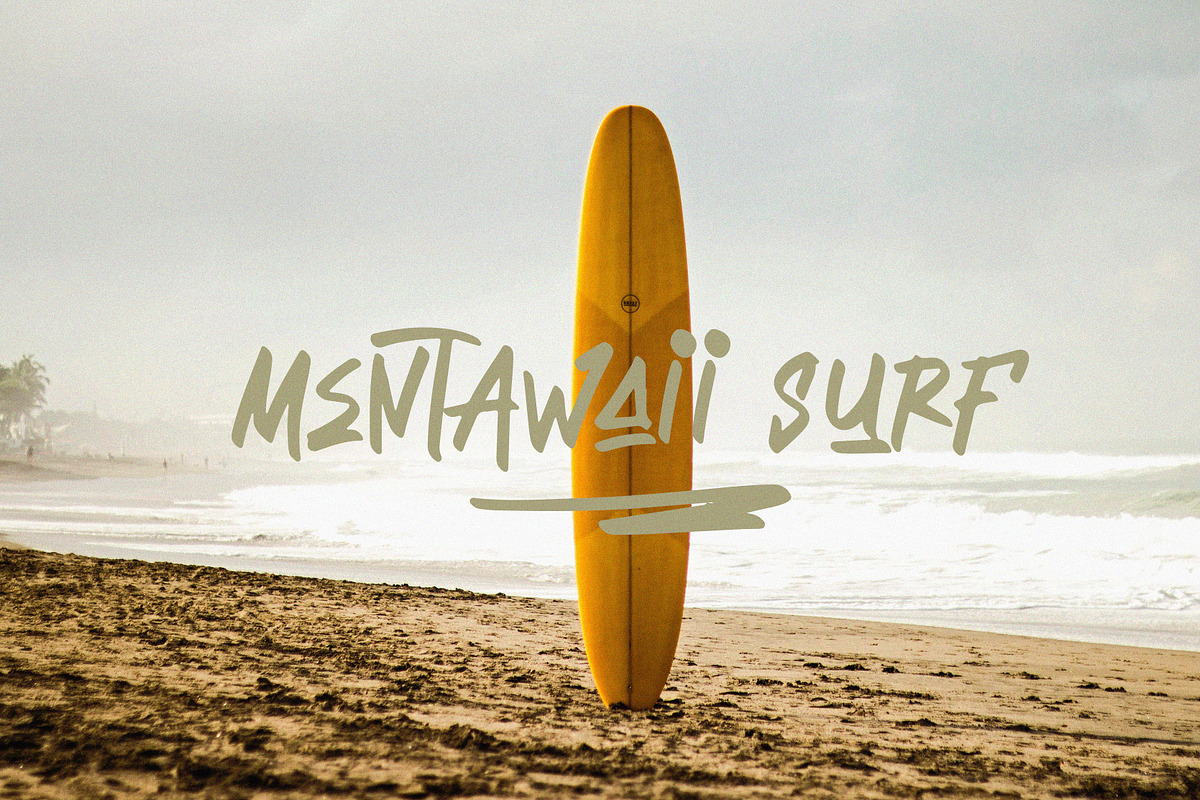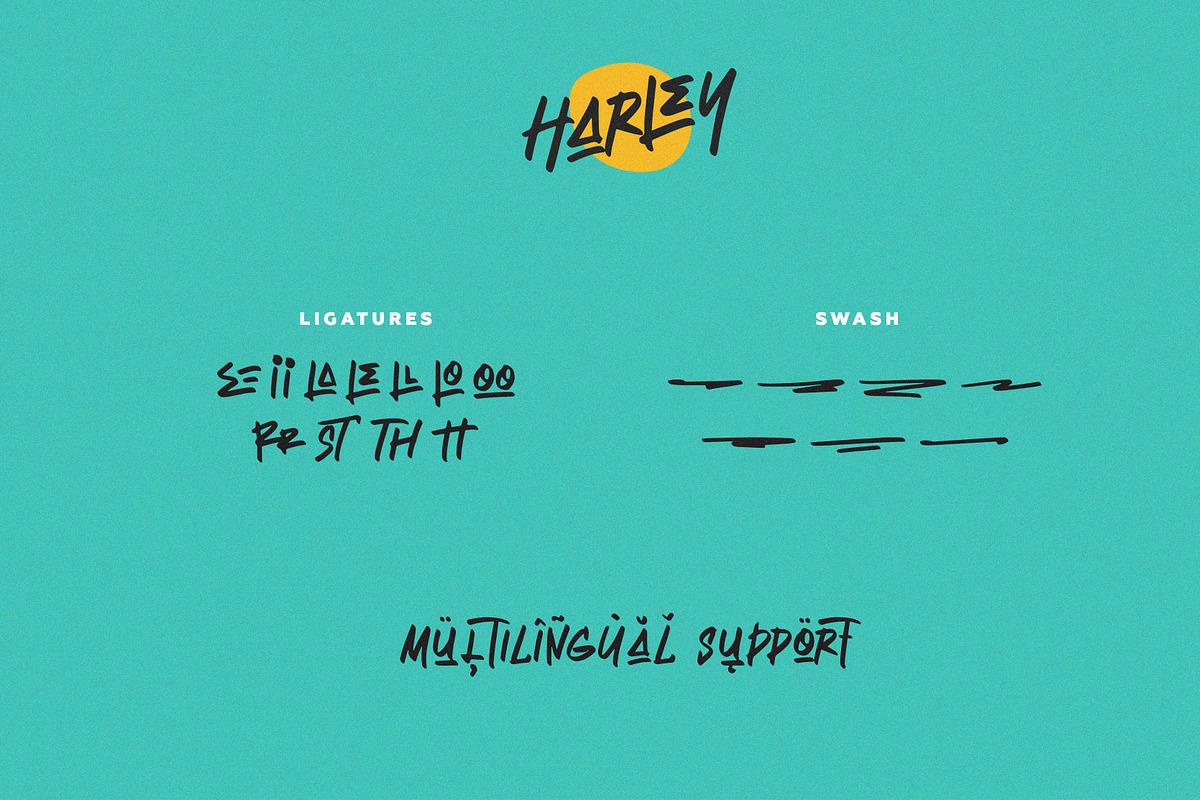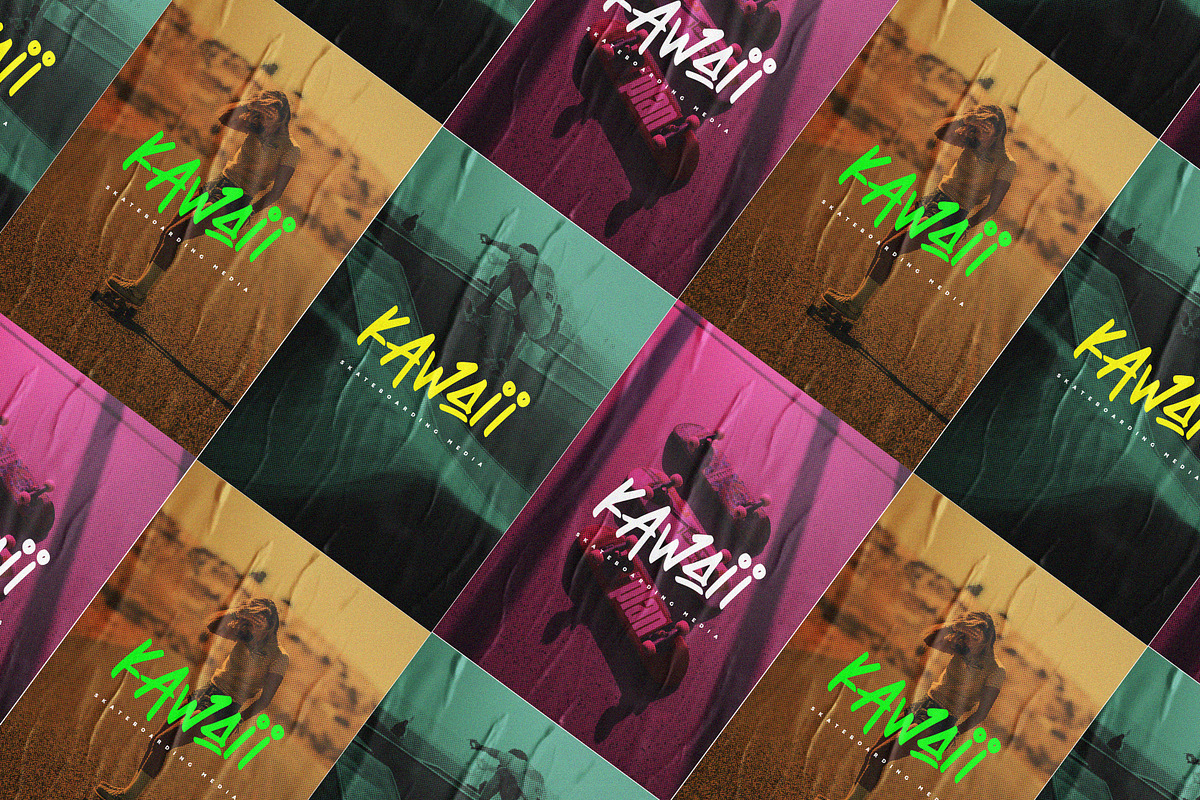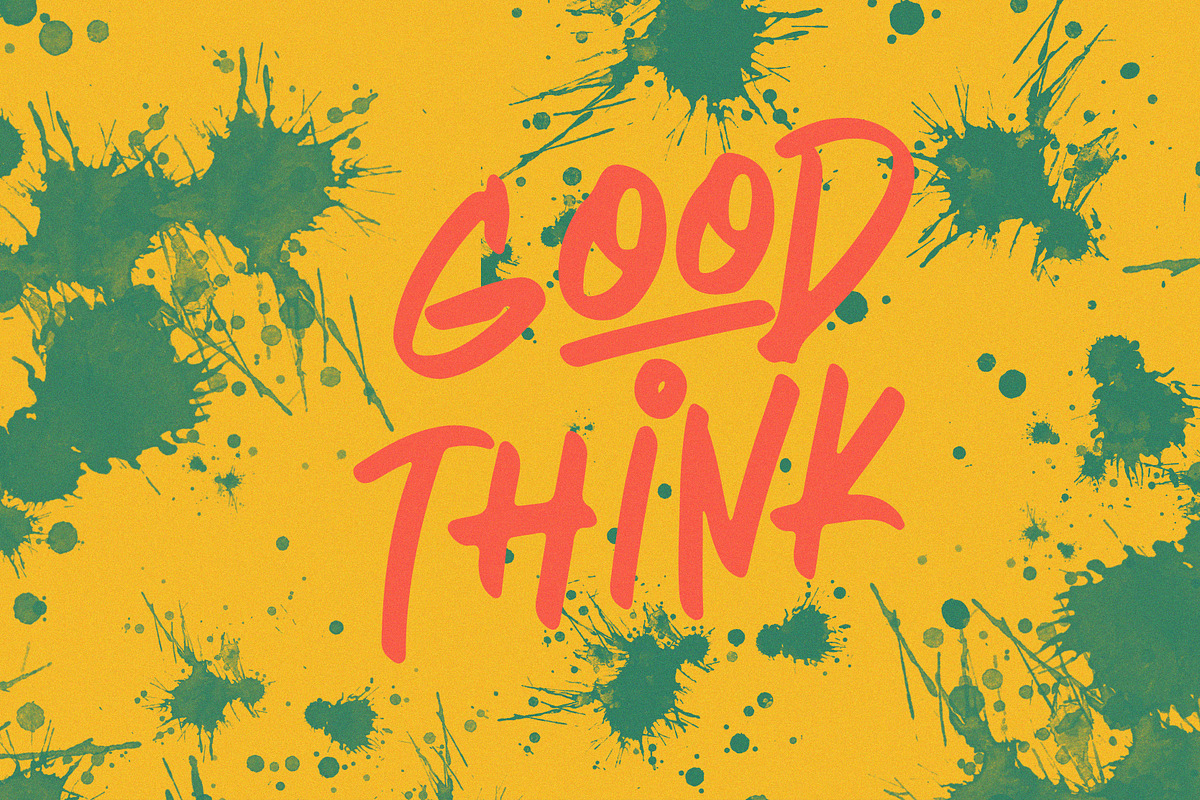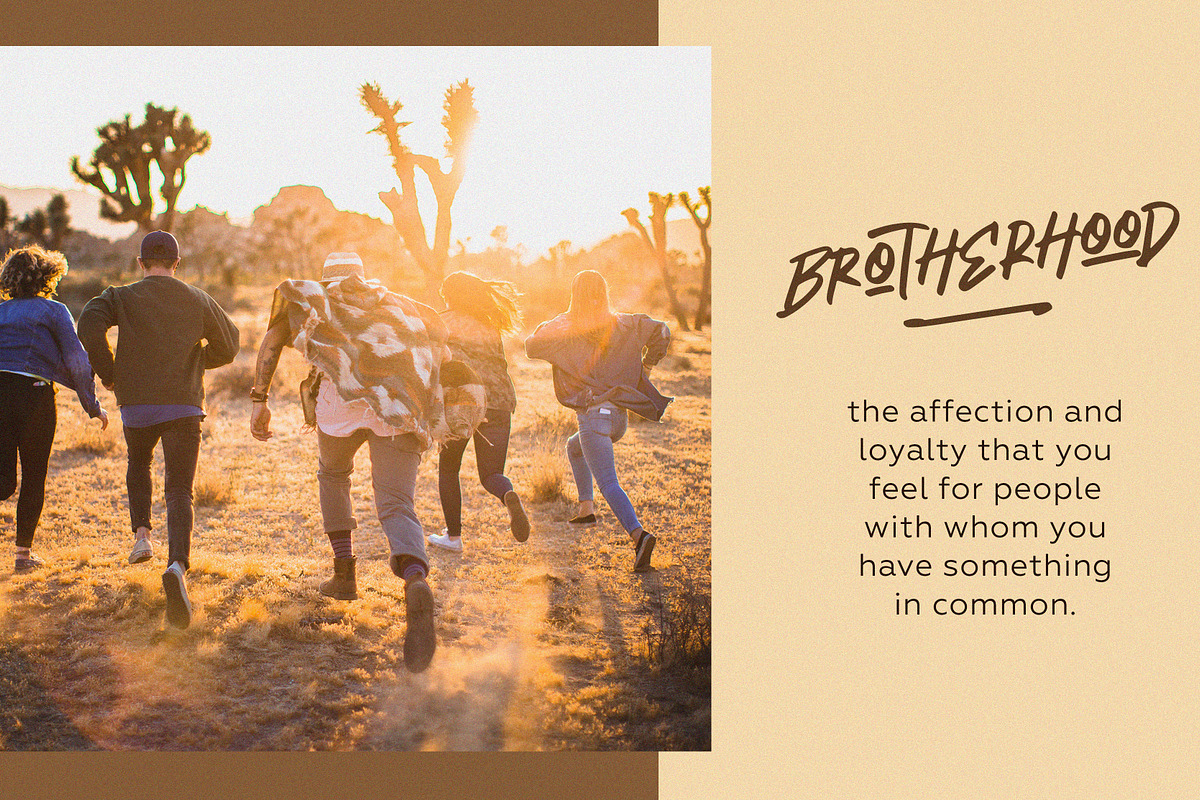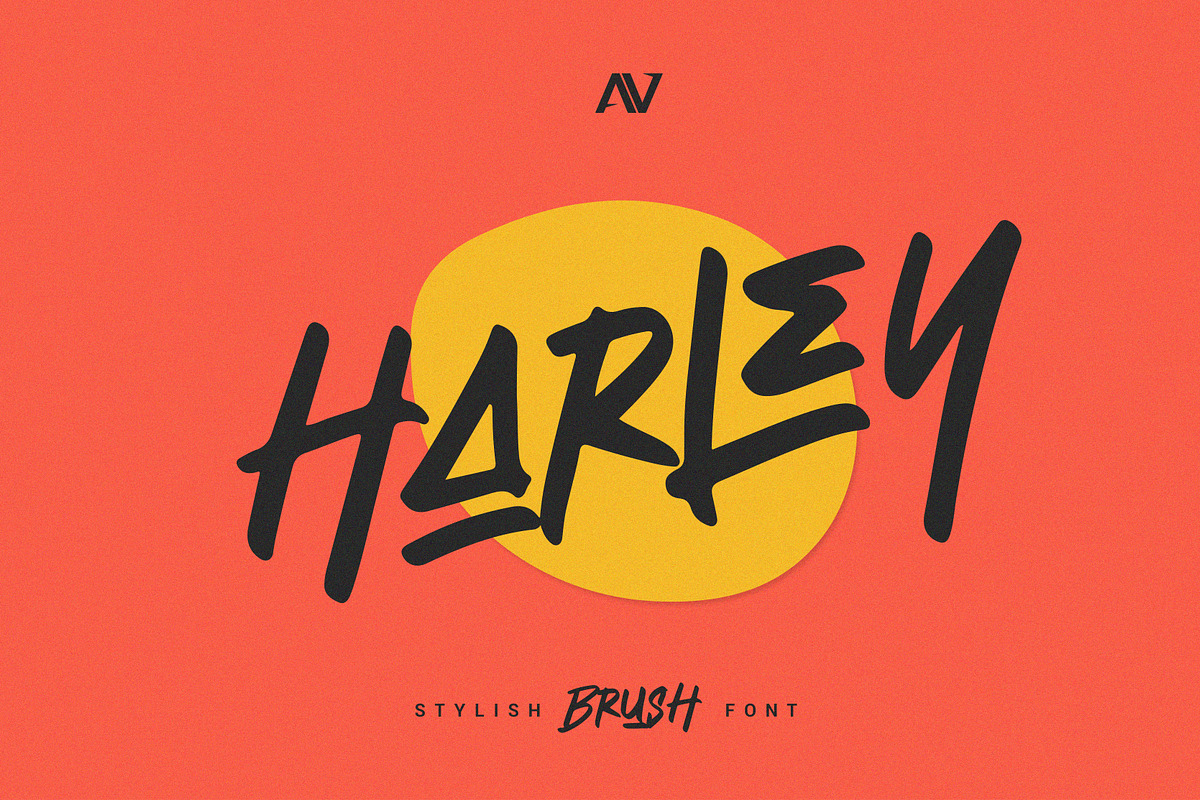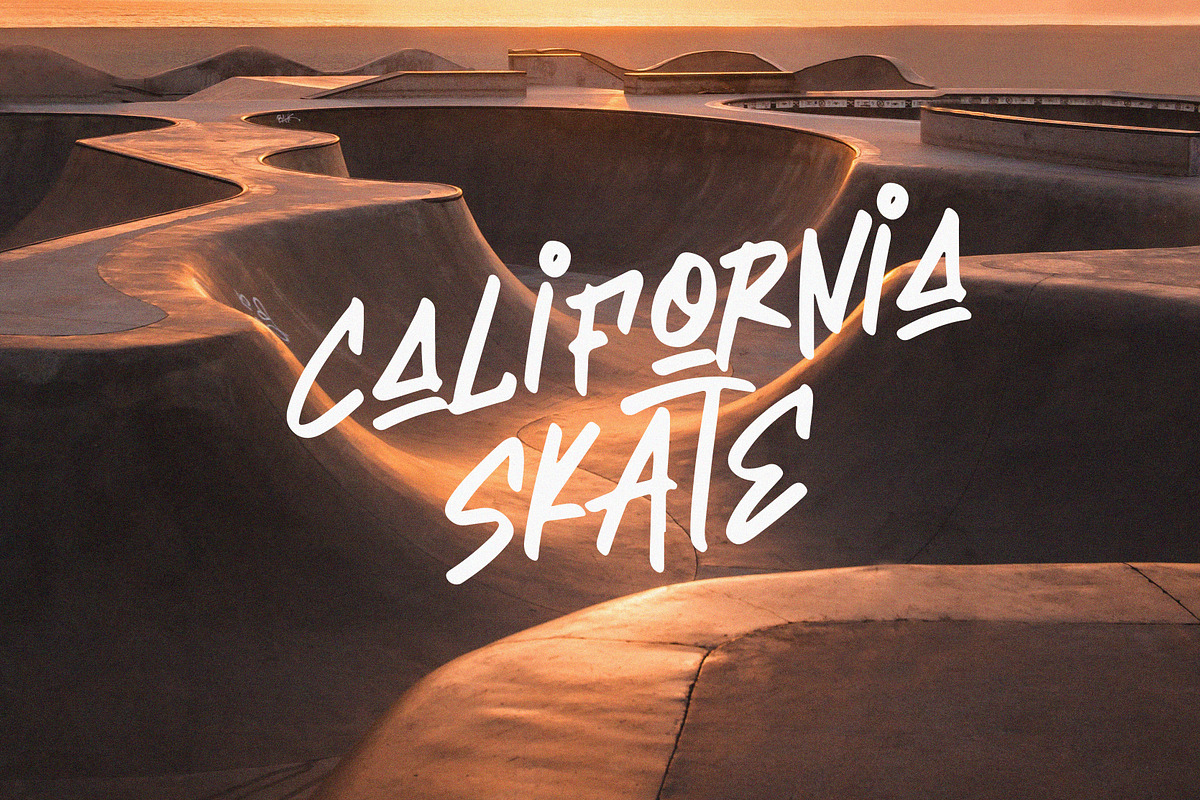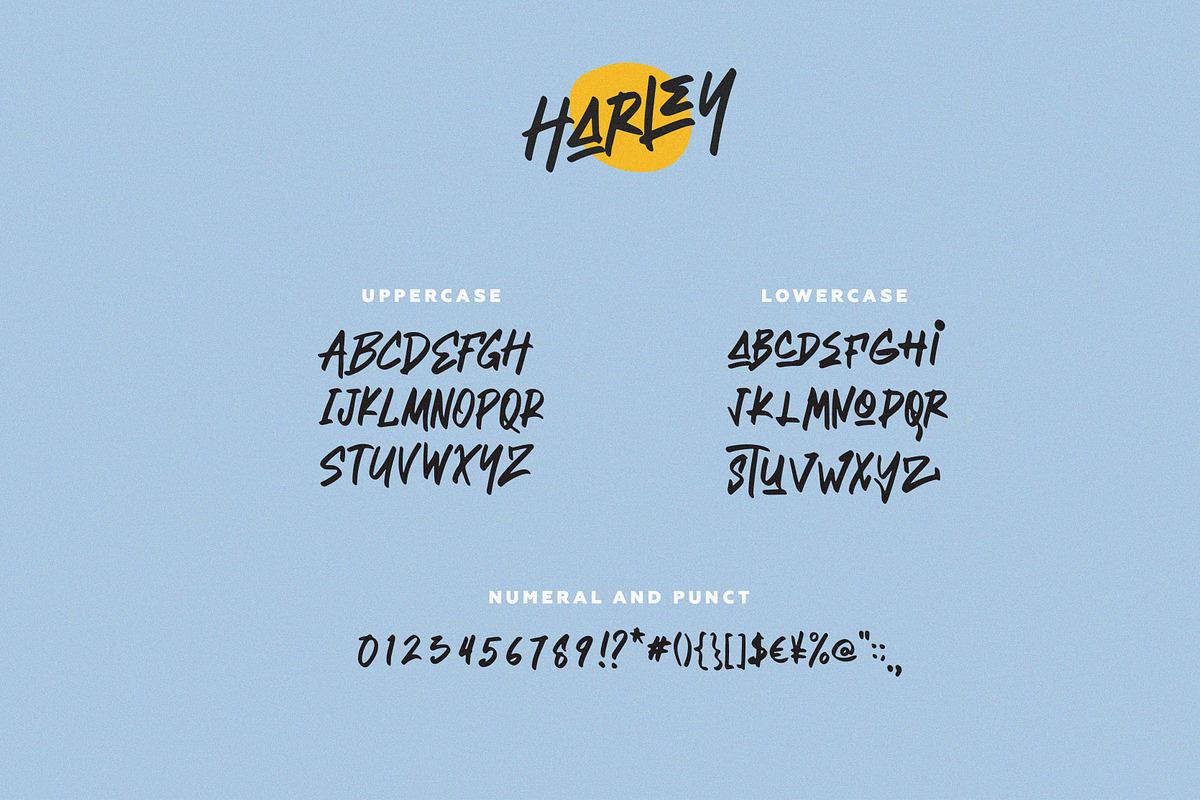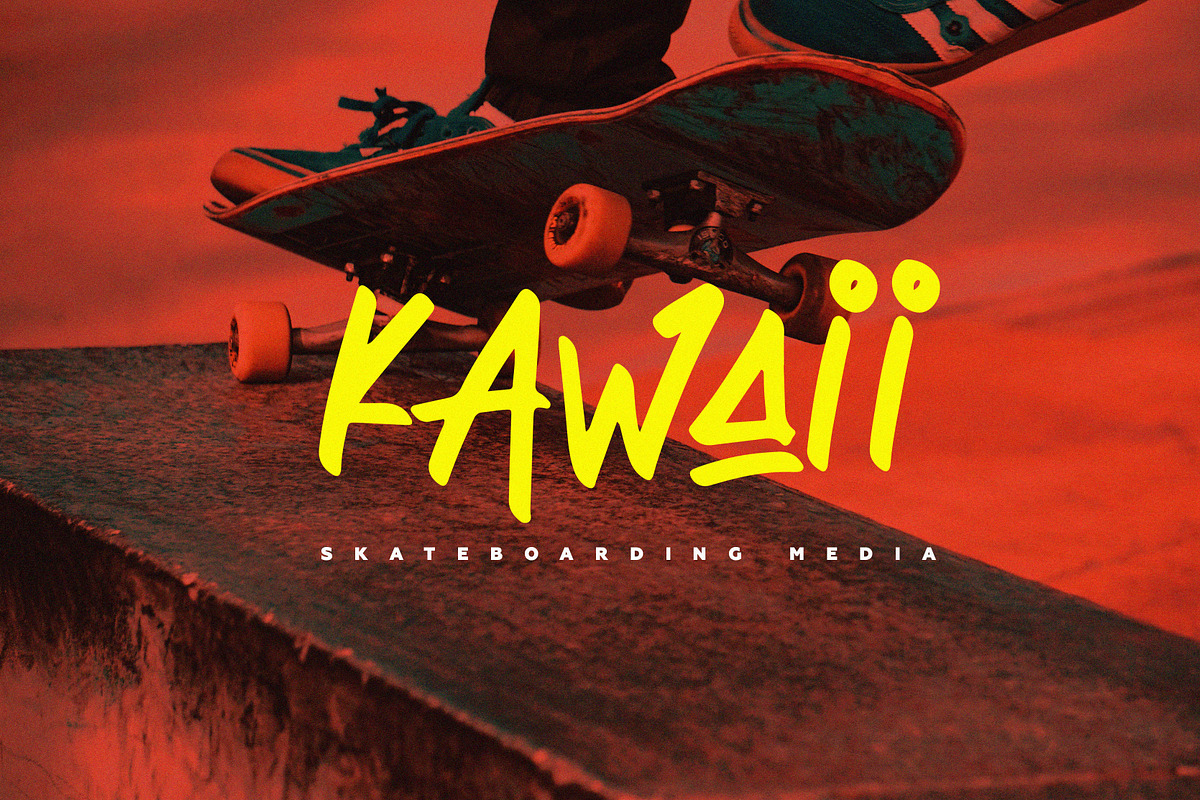
Harley - Stylish Brush
Harley is a brush font that looks stylish and modern perfect for your modern project. Harley It contains uppercase, lowercase, ligature and swash. Harley is perfect for branding projects, logo, social media posts, advertisements, product packaging, product designs, label, photography and any projects that need handwriting taste.